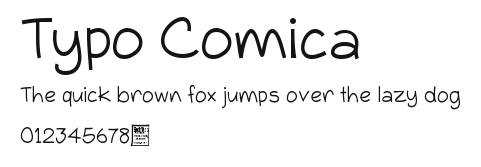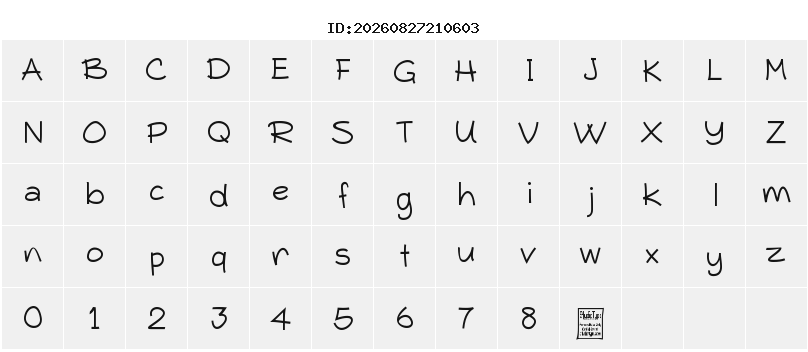
Typo Comica Preview
• Font Name: Typo Comica
• Font Style: Light
• Designer: Mehmet Abacı
• Manufacturer: StudioTypo
About Typo Comica.otf
Typo Comica.otf is a modern, elegant sans-serif font designed for ultimate readability and visual harmony. Perfect for branding, headlines, web design, and print materials.